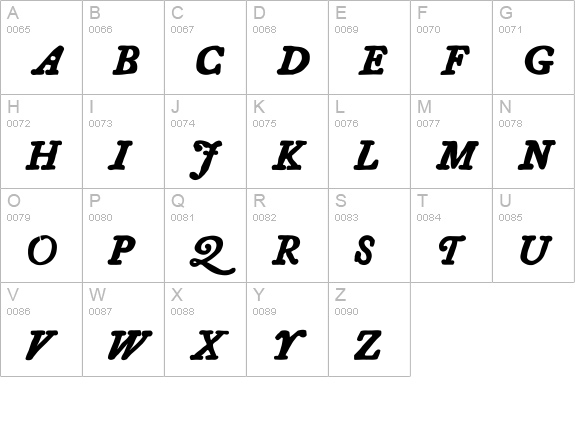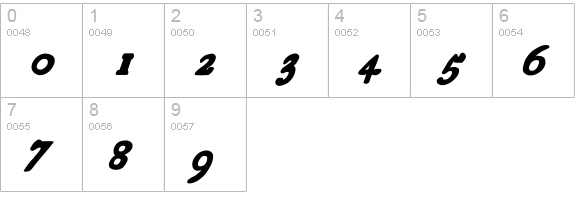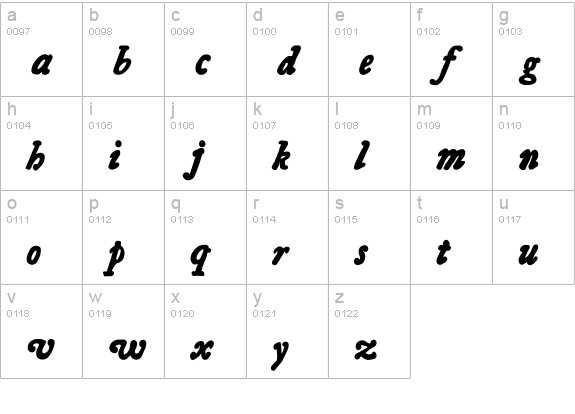
Essays 1743 Bold Italic is a strong, high-contrast, italic variant in the Essays typeface family \xE2\x80\x94 well suited to headlines, attention-grabbing titles, and strong calls-to-action.
Essays 1743 Bold Italic font is a stunning and versatile typeface that combines traditional elegance with a contemporary twist. Its bold and italic design makes it perfect for adding emphasis and style to any project. Whether you're creating a striking headline or adding a touch of sophistication to your designs, Essays 1743 Bold Italic font is sure to make a statement. And the best part? This elegant font is available for free download at FontsMarket.com. So go ahead and elevate your design projects with the timeless charm of Essays 1743 Bold Italic font.